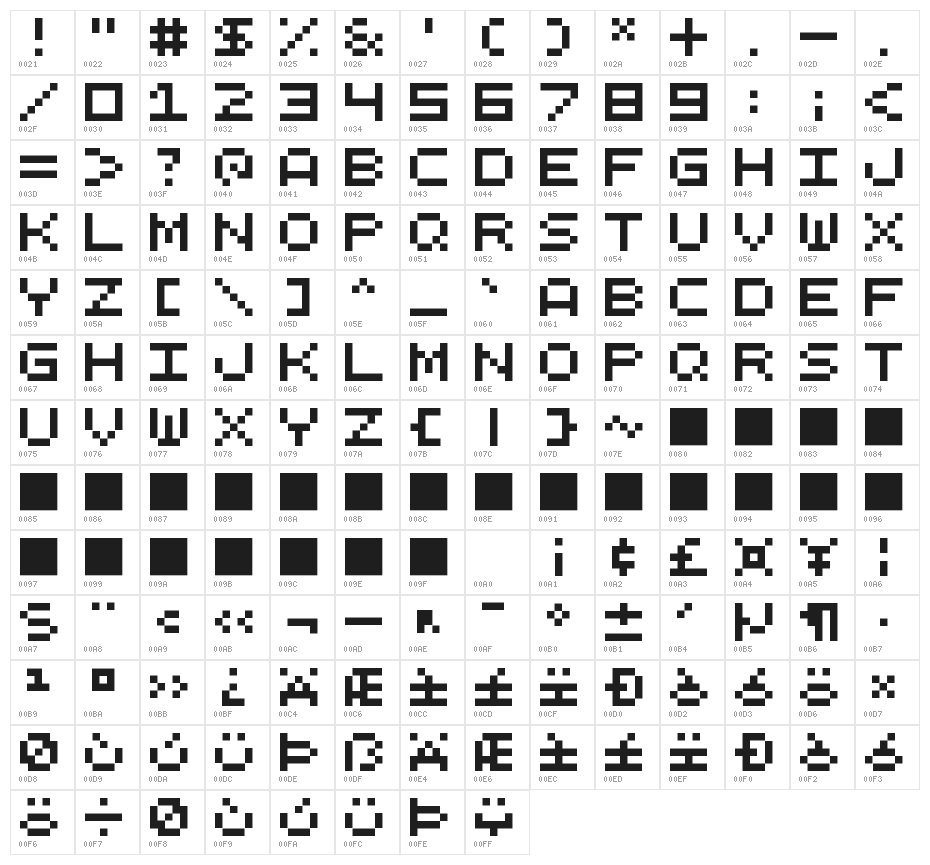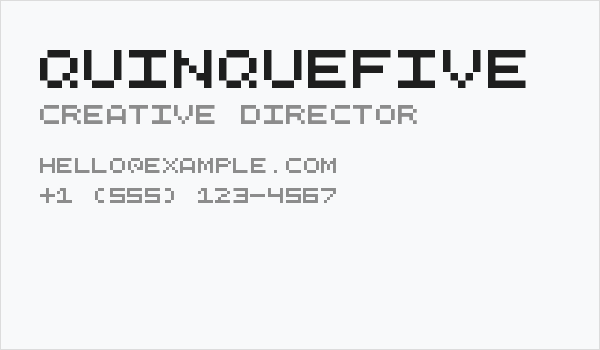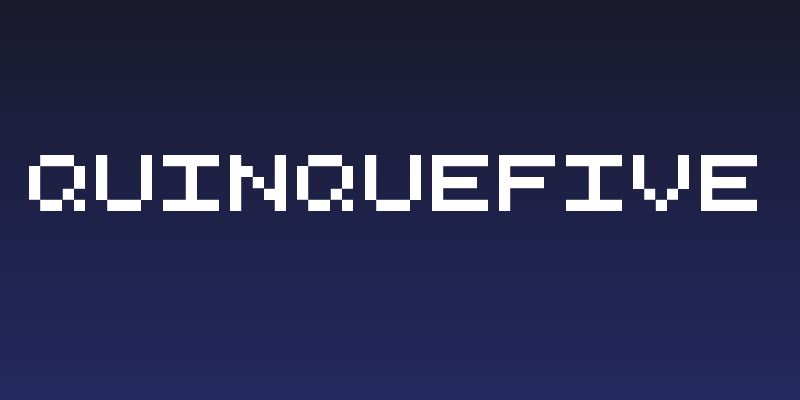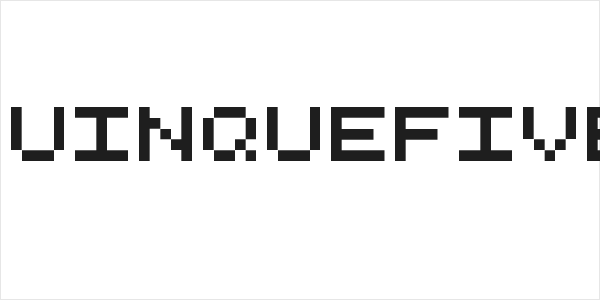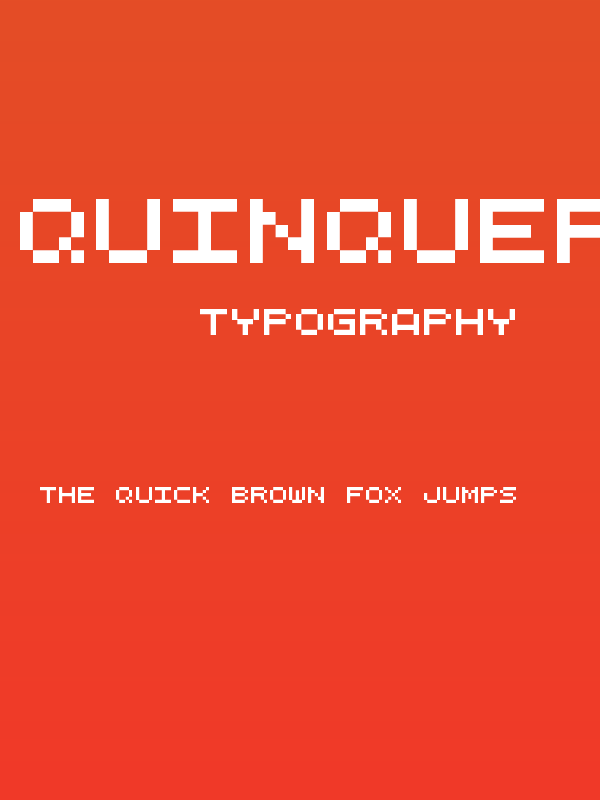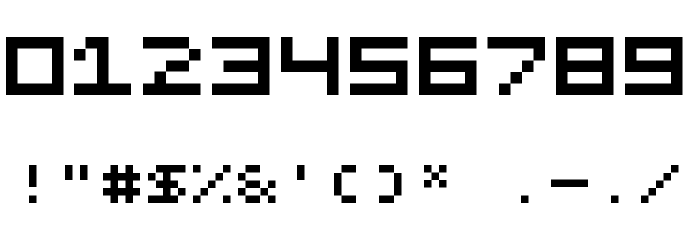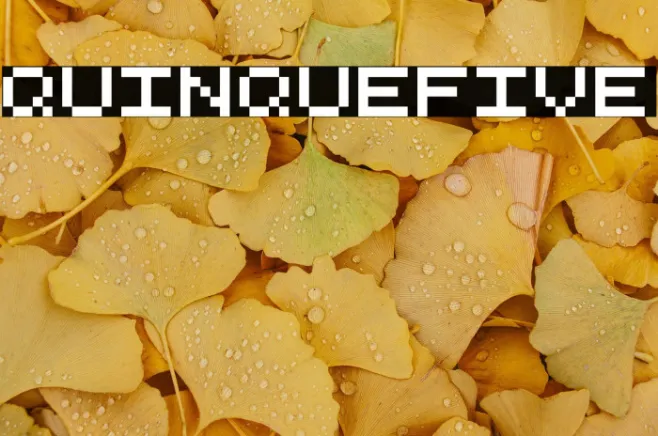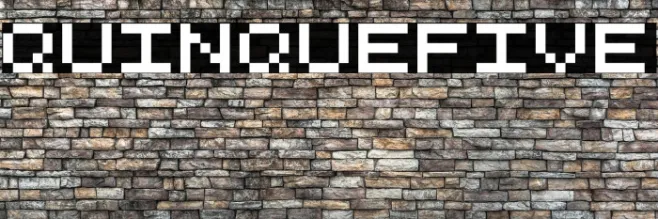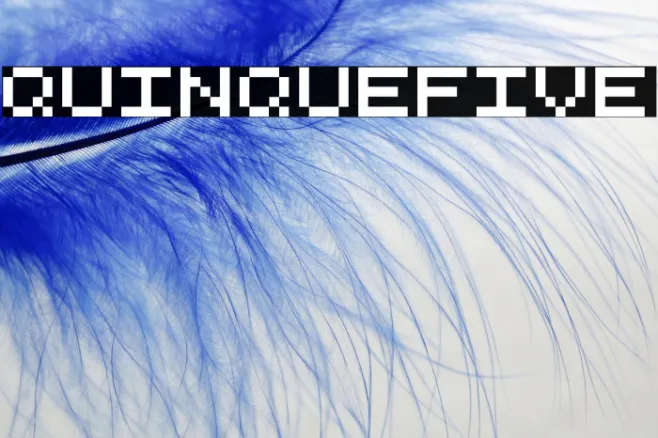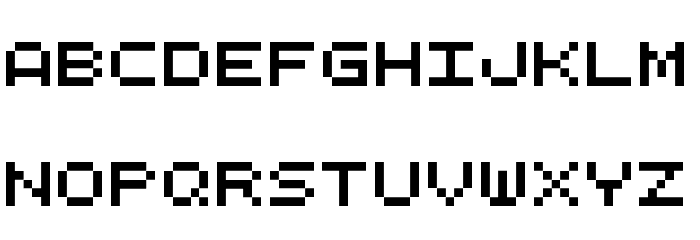
QuinqueFive Font
QuinqueFive Description
This font features a bold, geometric design with a pixelated, blocky appearance reminiscent of early digital typefaces. Each character is composed of uniform square blocks, giving it a distinctly retro, video game-like aesthetic. The uppercase and lowercase letters maintain a consistent height, contributing to a monospaced feel, although the font is not strictly monospaced. The numerals and special characters follow the same design principles, ensuring a cohesive look across all glyphs. The font's simplicity and clarity make it highly legible, even at smaller sizes, while its unique style adds a touch of nostalgia and modernity to any design.